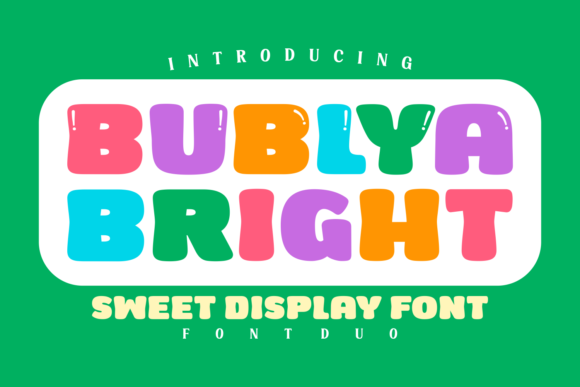
Have you ever been in the middle of a design project, everything is going smoothly, and then you hit a roadblock – finding the perfect font? I recall a particularly frustrating experience while working on a cheerful children’s book project. The illustrations were playful, the colors were vibrant, but I just couldn’t find a font that matched the energy and positivity of the story. That was until I stumbled upon Bublya Bright, a bold and chunky display font that instantly elevated my design.
First Impressions: A Review of Bublya Bright
Bublya Bright is more than just a font – it’s a statement piece. Its characters exude cheerfulness and positivity, making it perfect for designs that need a bit of personality. Here’s what I love about it:
• ✨ Unique character design: Each letter has a distinct, bubbly feel to it, making it perfect for headings and titles.
• ✅ Ease of readability: Despite being bold, the font remains clear and easy to read, even at smaller sizes.
• 💡 Versatility: It can be used for a wide range of projects, from children’s books and crafts to posters and digital content.
Of course, no font is perfect, and Bublya Bright does come with a few minor quirks:
• 🤔 Limited use for body text: Due to its bold nature, Bublya Bright might not be the best choice for longer texts. It’s ideal for headings and titles.
• ⚠️ Glyph variety: While it has a good range of characters, it might not have every special glyph or symbol you need. A quick check of the font’s capabilities before committing to a project is a good idea.
Bublya Bright supports OpenType features, which can add an extra layer of creativity to your designs. Look for stylistic alternates and glyphs that can help you customize your text. For example, you might find alternate letterforms or swashes that can add a playful touch to your headings.
The inspiration behind Bublya Bright comes from a desire to create a font that embodies joy and positivity. Imagine a designer who loves children’s books and wants to create a font that makes reading fun for kids. They experiment with shapes and lines until they come up with characters that are not only bold and chunky but also friendly and approachable. That’s Bublya Bright – a font designed to bring a smile to your face and make your designs pop.
Is Bublya Bright suitable for body text? No, it’s best used for headings and titles due to its bold nature.
Does Bublya Bright support OpenType features? Yes, it does. Look for stylistic alternates and glyphs to enhance your designs.